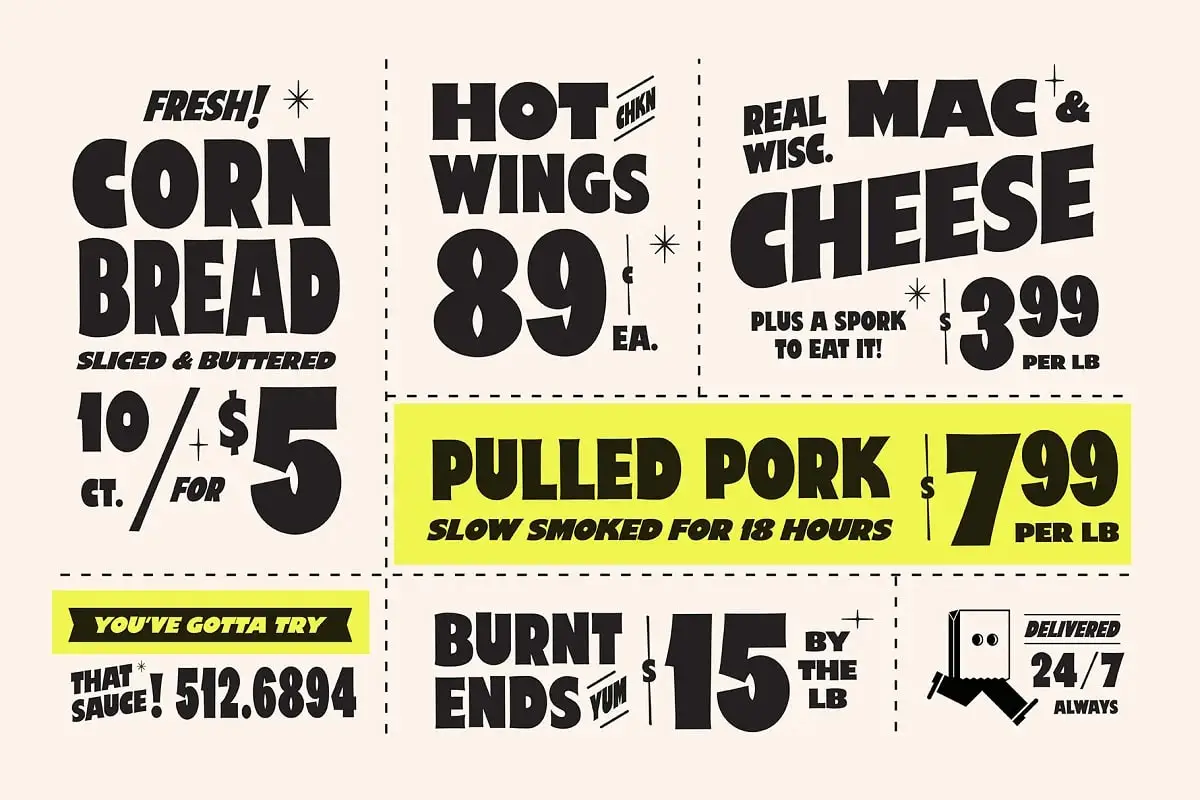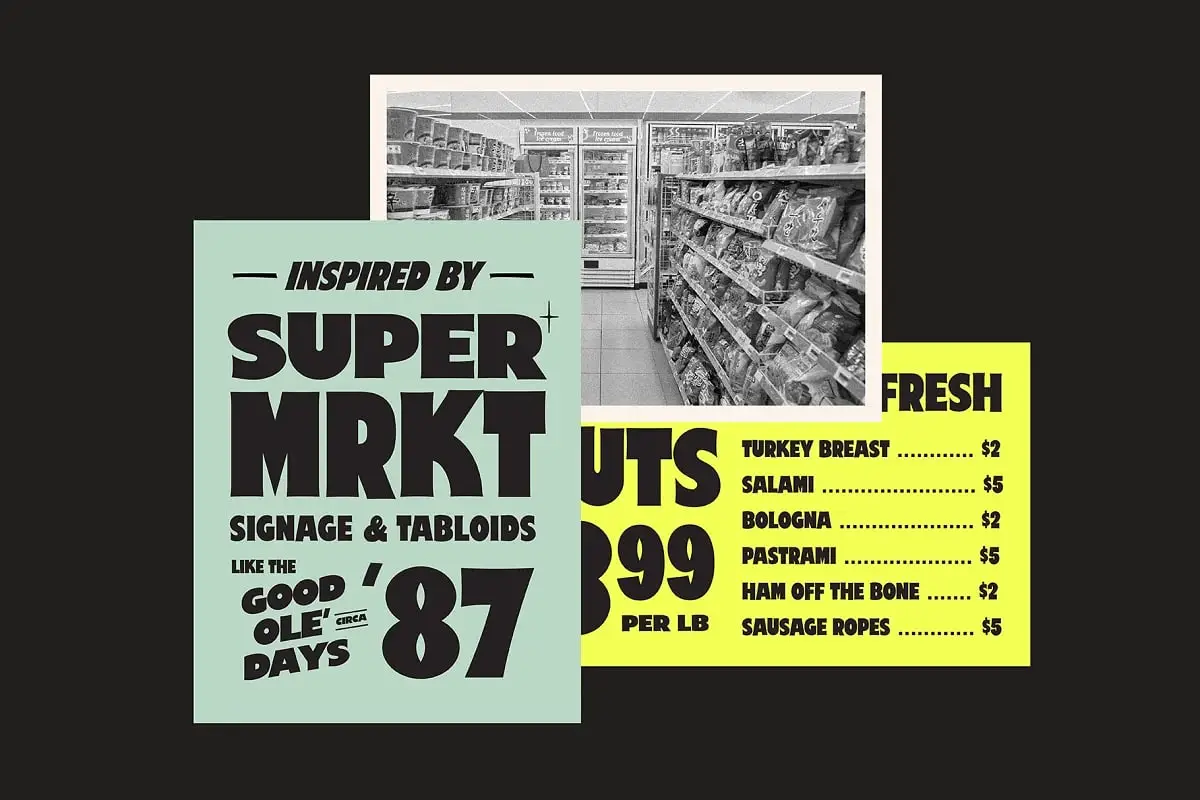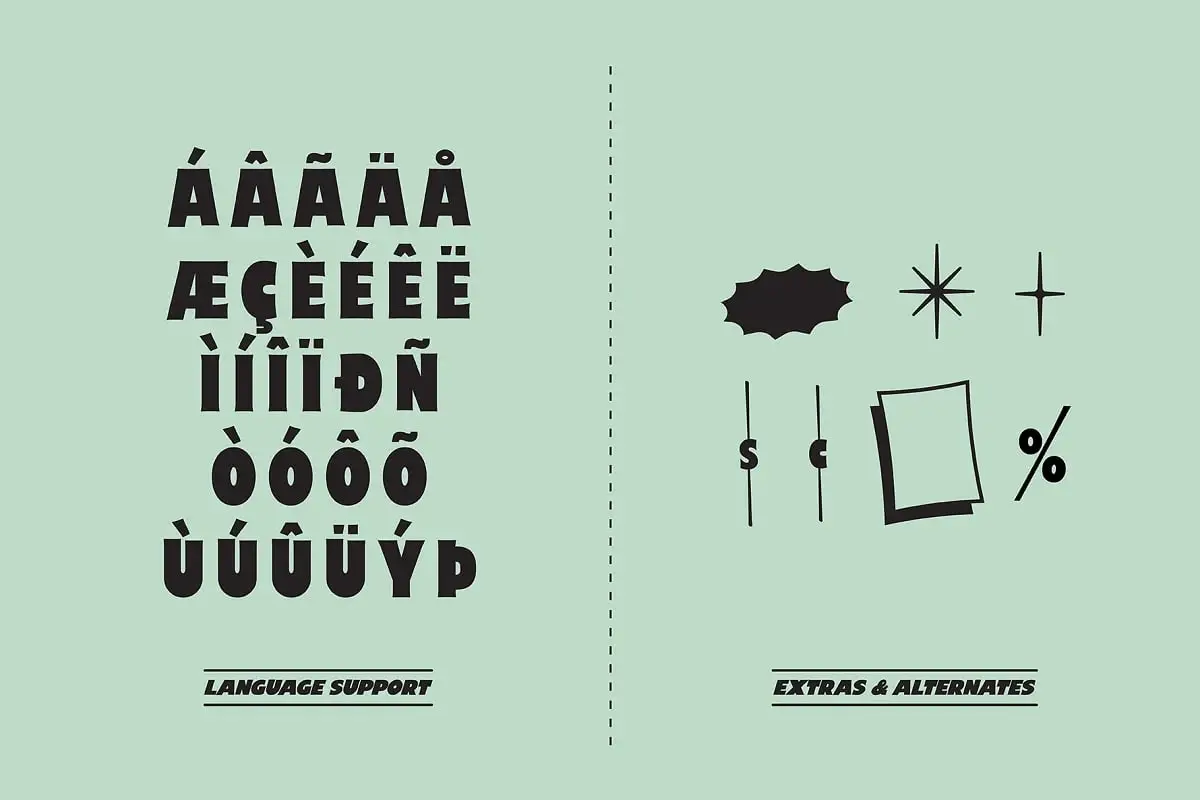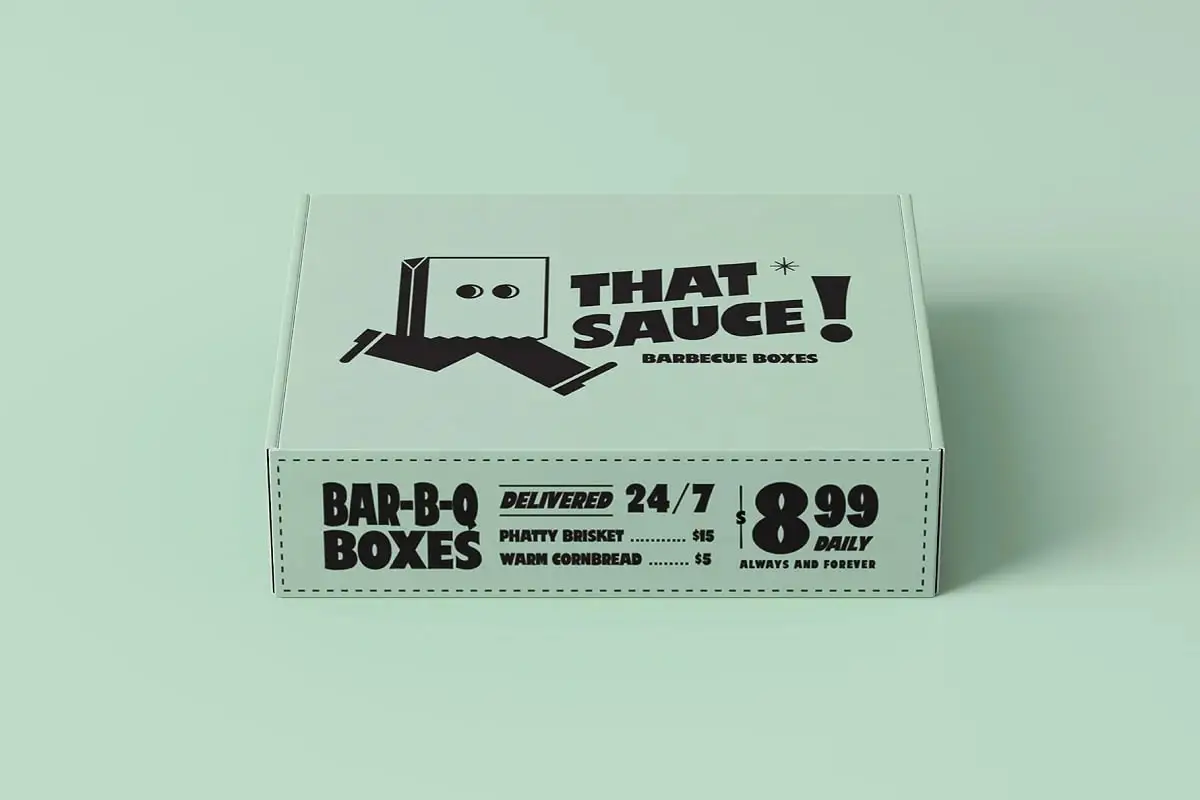
Price Check Font
The Price Check Font is a versatile typeface designed to bring clarity and style to your projects. With its clean lines and modern aesthetic, this font is perfect for a variety of applications, including branding, logos, web design, and print materials.
• Weights: Light, Regular, Bold
• Ideal for creating eye-catching logos and branding materials.
• Use in web design for a modern and professional look.
• Perfect for print projects such as flyers, brochures, and posters.